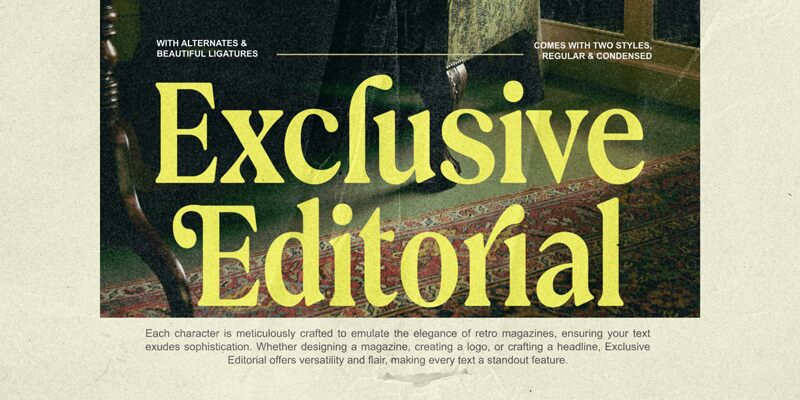
Exclusive Editorial font by Dora Typefoundry is a free serif font with an elegant, sophisticated, and retro-inspired vibe. It was designed with the concept of versatility and expressiveness in mind. As it is an editorial typeface, the refined letters have a stylish and nostalgic personality making it an excellent choice for a variety of printed and digital applications. The typesetting has a sophisticated flair that will elevate any project where the font is used. This attribute is enhanced by the carefully designed letter pairs that are more than satisfying.
This typeface is certain to fit some of your projects like book covers, web interfaces, food and drink branding, typographic poster, advertisement, and more. Wordmarks and logotypes will immensely benefit from this high-quality typeface as well. It is perfect for fashion-related projects, and anything related to perfumes, shoes, and luxury products such as watches and high-end brands.